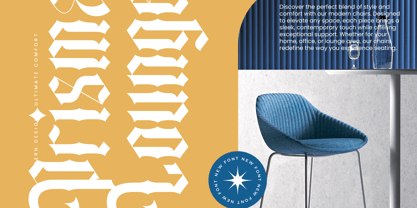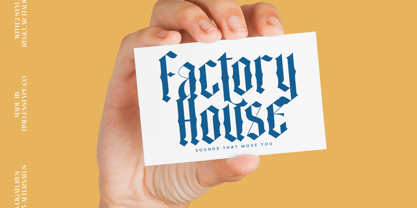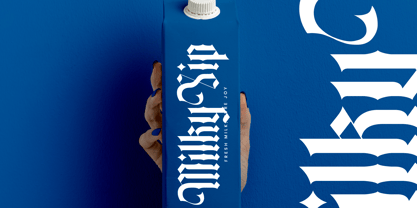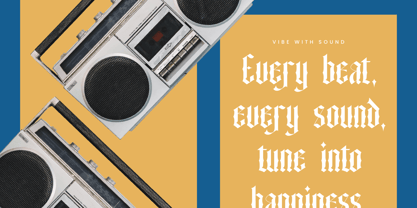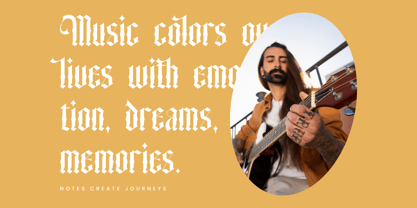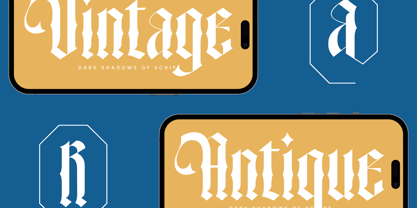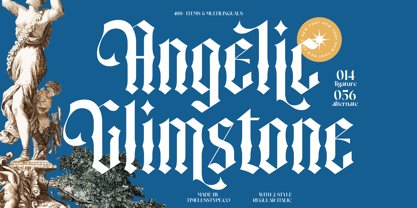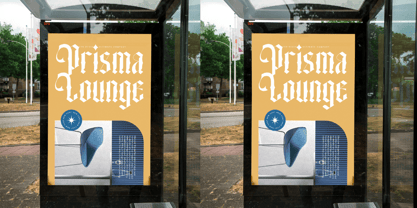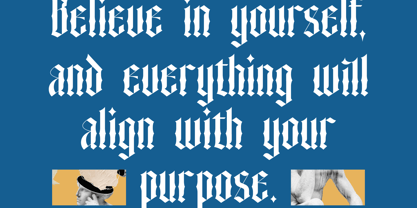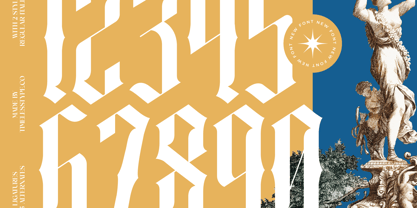
Angelic Glimstone
by Timelesstype Studio
The Angelic Glimstone Font Family was designed by Heru Utama Putra and published by Timelesstype Studio. Angelic Glimstone contains 2 styles and family package options.
Angelic Glimstone - Blackletter Font , from Timelesstype , Suitable for any projects such as: logos, branding projects, homeware designs, product packaging, mugs, quotes, posters, shopping bags, t-shirts, book covers, name card, invitation cards, greeting cards, label, photography, watermark, special events, and all your other luxury and beautiful projects that need a Luxury Serif taste.